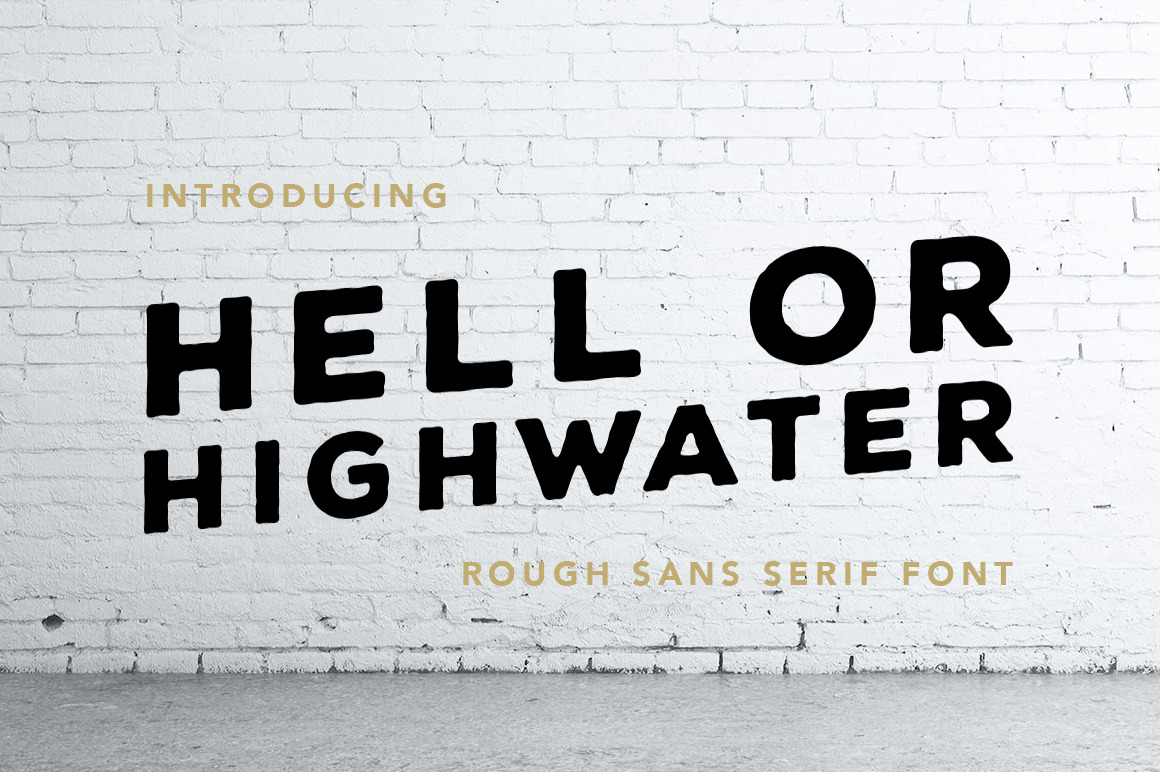
Hell or Highwater - Sans Serif Font
Hell or Highwater isn't your run-of-the-mill sans serif font. It's rough, edgy, and full of character! Hell or Highwater is guaranteed to leave a bold and undeniable mark on any project. It's great for designs, logos, social media quotes, greeting cards + more.
Hell or Highwater comes as a single font file. It contains a full set uppercase letters and numerals and a large range of punctuation. Hell or Highwater is an evolution of the fun Nexa Rust family by Fontfabric Type Foundry. It has evolved in many ways featuring completely rounded corners on every glyph and deeper, more frequent erosions projecting a much more rough and aged feel.